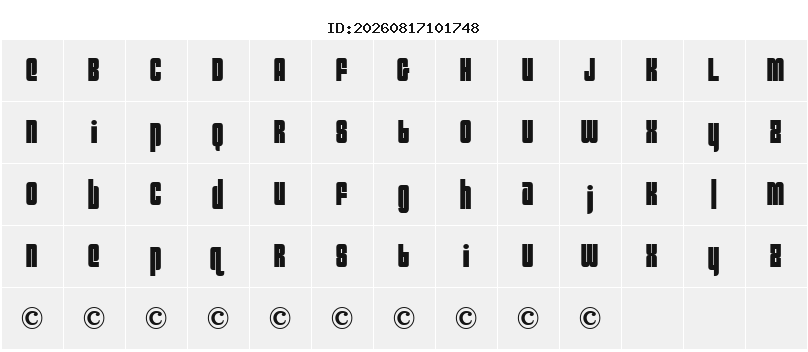
• Font Name: SooperCosmic
• Full Font Name: SooperCosmic
SooperCosmic.ttf is a modern, elegant sans-serif font designed for ultimate readability and visual harmony. Perfect for branding, headlines, web design, and print materials.